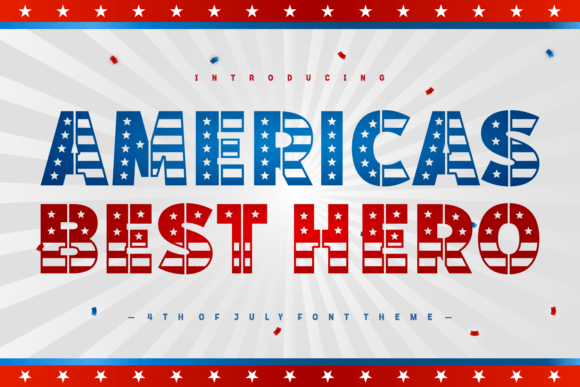
In the illustrious realm of typography, where letters dance and words ignite the imagination, America's Best Hero Font emerges as a masterpiece, a decorative font par excellence, ready to adorn your designs with a touch of American glory.
Visualize the impact, the sheer allure of your designs when adorned with this font, a font that evokes the essence of the American spirit, a visual symphony of stars and stripes, a testament to the indomitable spirit of a nation united.
Crafted with meticulous care, each character of this font embodies the essence of American heritage, the strength of its people, and the unwavering pursuit of liberty and justice for all. It's a font that speaks volumes, resonating with the heartbeats of a proud nation.
Unleash your creativity and transform ordinary words into a captivating tapestry of visual delight, a harmonious blend of artistry and patriotism. Let America's Best Hero Font be your brush, painting the canvas of your designs with the vibrant hues of American pride.
Be it the bold proclamations on a poster, the stirring headlines of a newspaper, or the heartfelt messages on a greeting card, America's Best Hero Font is your chosen instrument, your artistic ally, your trusted companion in the pursuit of excellence.
For those seeking a font that transcends the boundaries of the ordinary, America's Best Hero Font stands tall, a beacon of inspiration, a testament to the power of typography to capture the essence of a nation's spirit.
Embrace this font, let it ignite your imagination, let it be the spark that sets your designs ablaze with the fire of American pride.